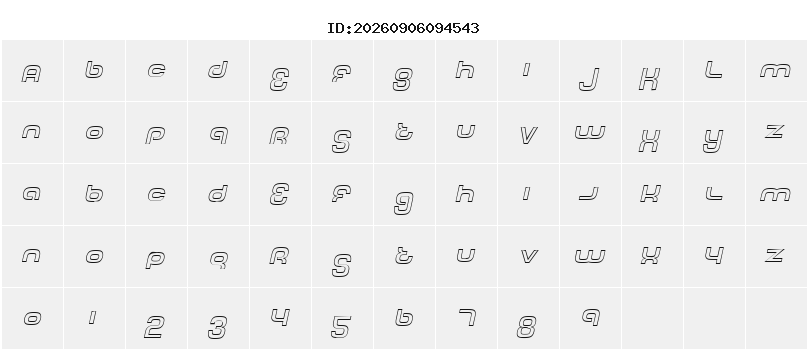
Tech Font Outline Preview
• Font Name: Tech Font Outline
• Font ID: Macromedia Fontographer 4.1 Tech Font Outline Italic
• Full Font Name: Tech Font Outline Italic
• PostScript Name: TechFontOutlineItalic
• Character Count: 101
About Tech Font Outline.ttf
Tech Font Outline.ttf is a modern, elegant sans-serif font designed for ultimate readability and visual harmony. Perfect for branding, headlines, web design, and print materials.